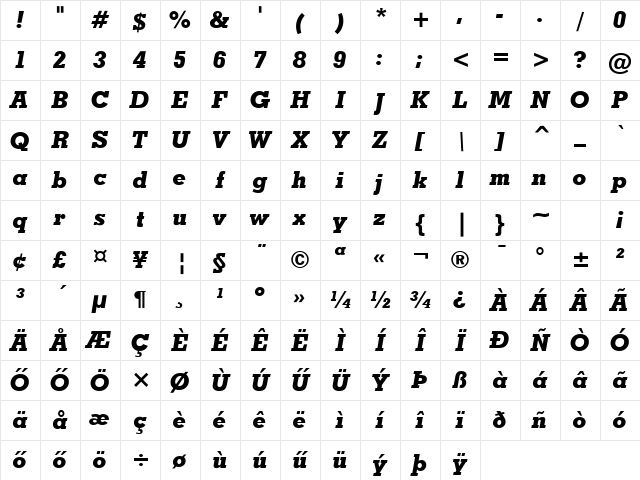
Geometric-Slabserif703 ExHU Extra Bold Italic Free Font
Design Context for Geometric-Slabserif703 ExHU
Geometric-Slabserif703 ExHU features prominent, blocky serifs that give it a confident, grounded presence - equally at home in editorial settings and bold branding work. The slanted form adds forward momentum and visual energy. Its bold stroke weight gives it real presence on the page.
Pro Tip: Use Geometric-Slabserif703 ExHU for headlines and subheadings where its slab serifs can make an impression. It also holds up well in mid-size body copy thanks to its sturdy construction.